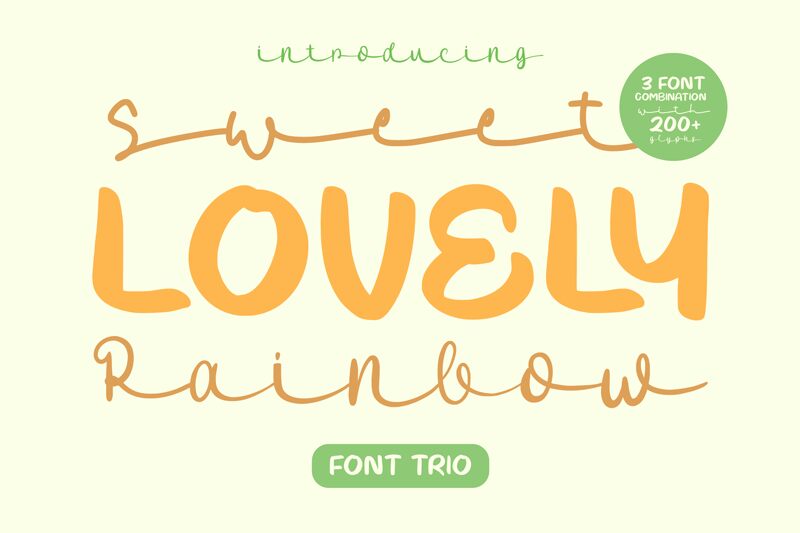
Sweet Lovely Rainbow One, a delightful addition to the Sweet Lovely Rainbow font family by Lettersweet Studio. With its charming handwritten style and semi-light weight, this font brings a touch of whimsy to any project.
Perfect for children's books, greeting cards, and nursery decor, Sweet Lovely Rainbow One adds a playful and enchanting vibe to designs. Its soft curves and flowing strokes create a sense of warmth and friendliness, making it an excellent choice for branding materials or social media graphics.